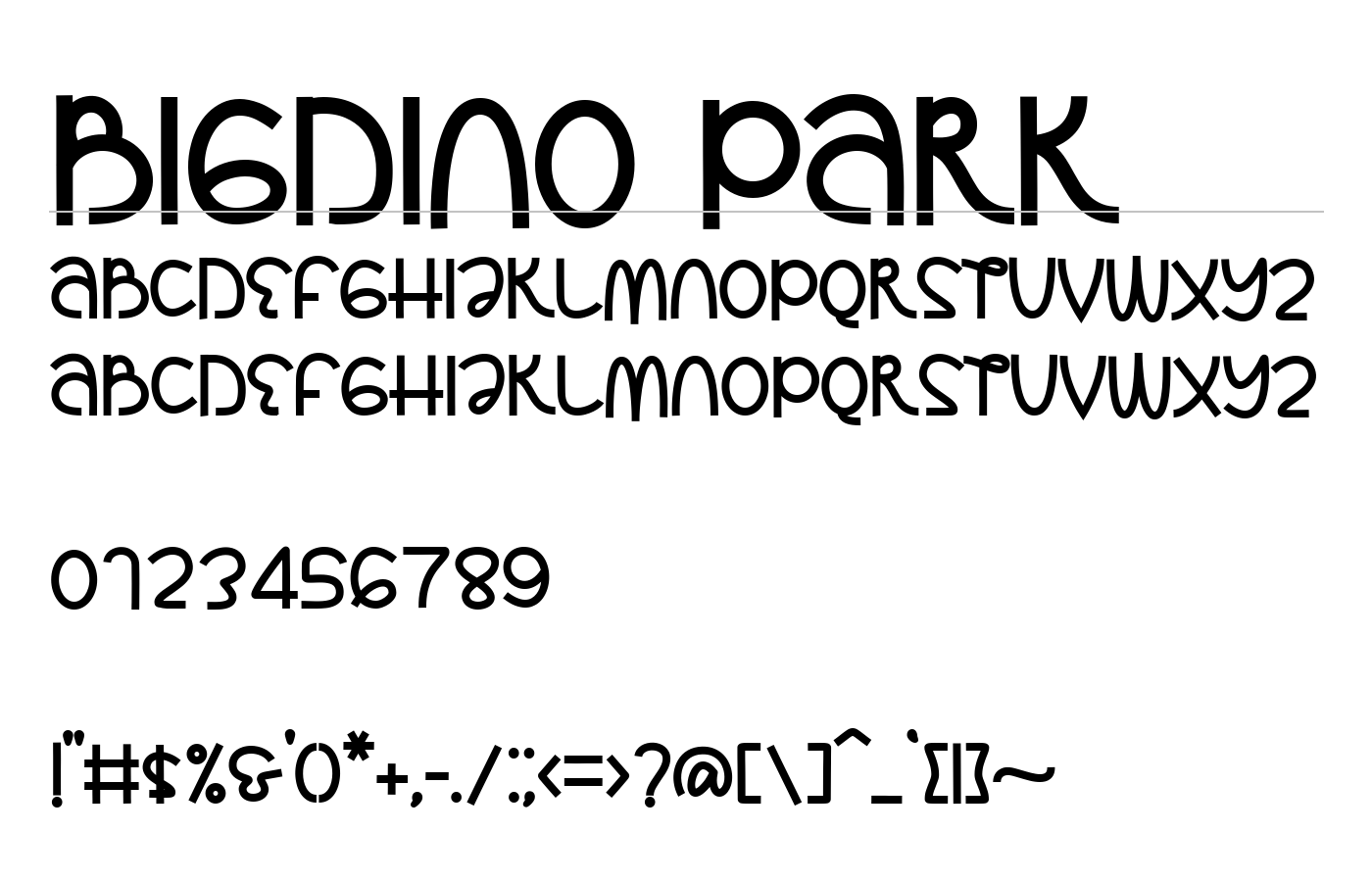
Bigdino Park is a quirky, modern sans serif font with playful, rounded shapes and distinctive letterforms that give it a fun, creative personality. Its moderate weight, clean lines, and unique details make it ideal for eye-catching headlines, children’s products, and casual branding where an approachable yet original vibe is desired. This font works well in designs that seek to balance whimsy with readability, adding a lively charm to posters, logos, and packaging.
Bigdino Park Font
About Bigdino Park Font